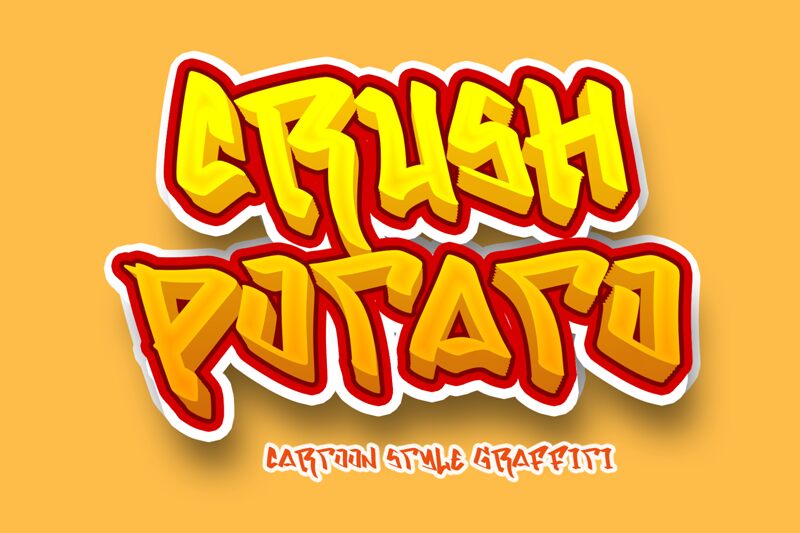
Crush Potato font by Yoga Letter is a free graffiti-style font that brings vibrant, dynamic, and edgy energy into its visual design. This font is characterized by its youthful and urban feel, captivating with its eye-catching, bold color contrasts.
It has an artistic flair and energetic vibe, along with a modern twist that sets its unique personality and character apart. With its distinct style, its overall visuality is extremely exciting.